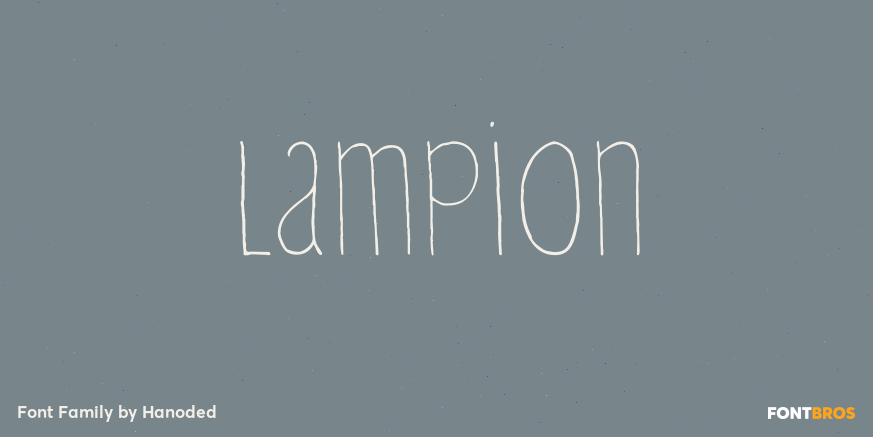
Lampions are paper lanterns. They are very popular in Asian countries, where they are used at festivals. Lampions are mostly made from rice paper cuttings which are glued to a bamboo frame. Lampion font is a tall, narrow and very legible typeface, which…